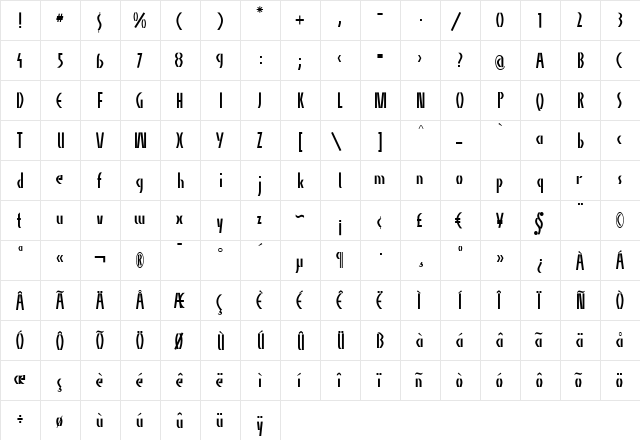
AlphaCharlie Plain Regular
Design Context for AlphaCharlie Plain Typeface
AlphaCharlie Plain is a composed and adaptable typeface that performs quietly and consistently across a wide range of design contexts.